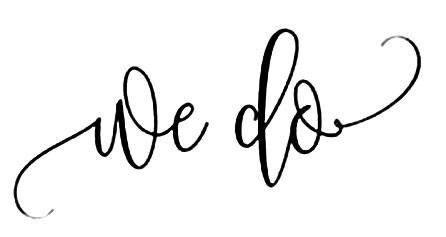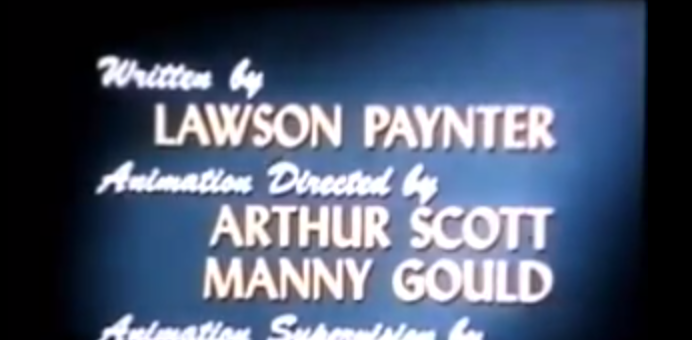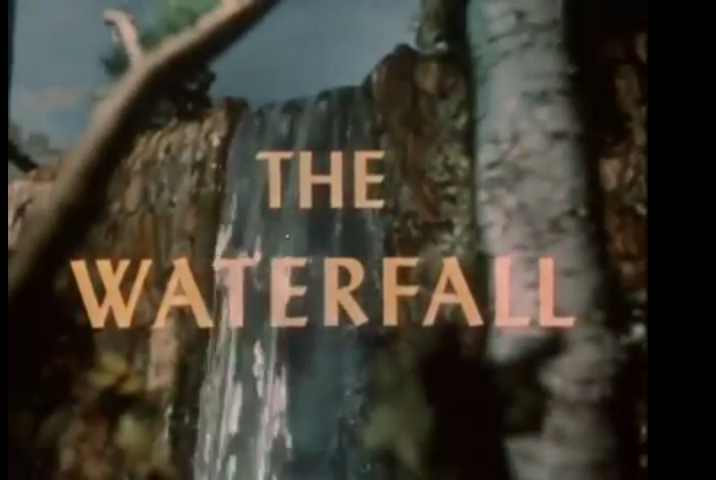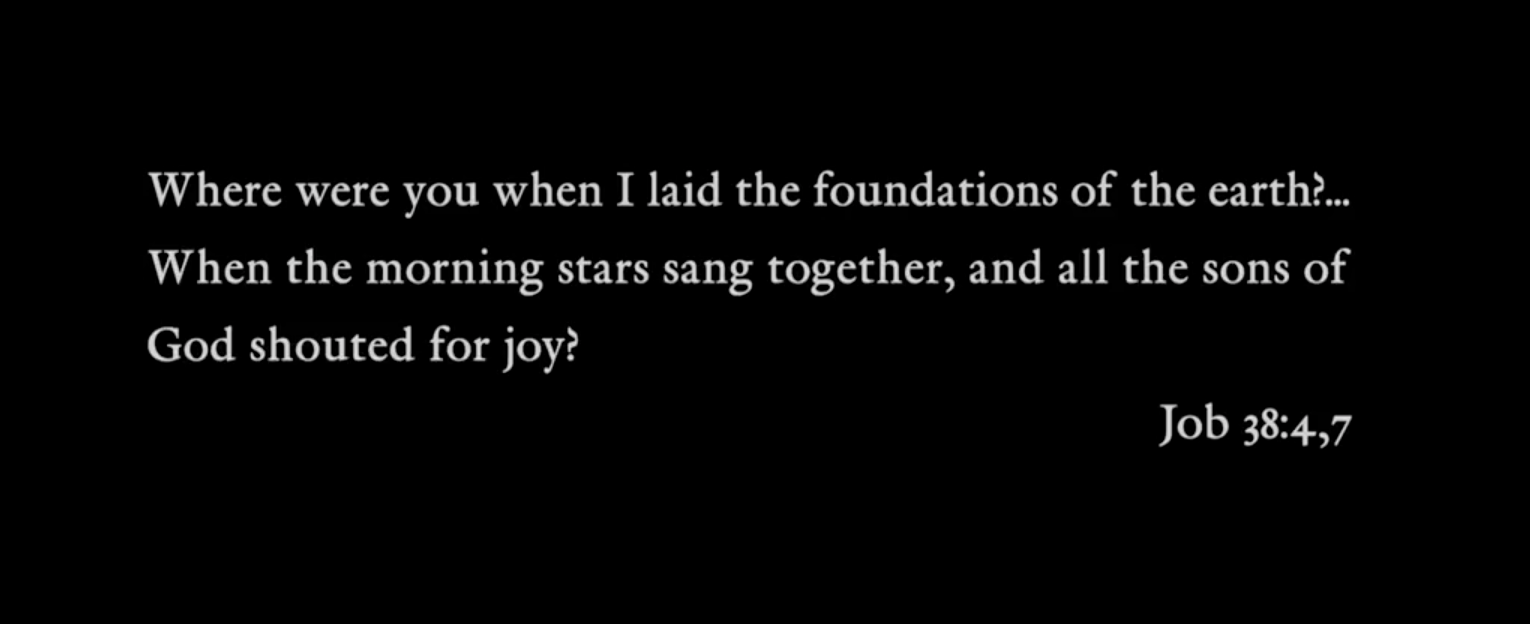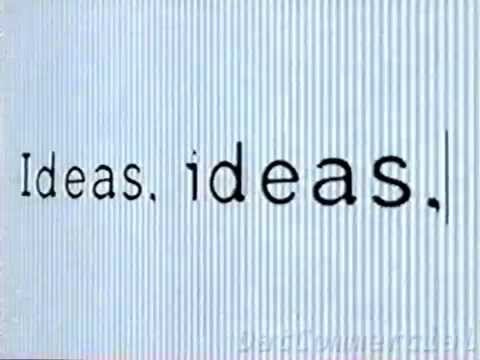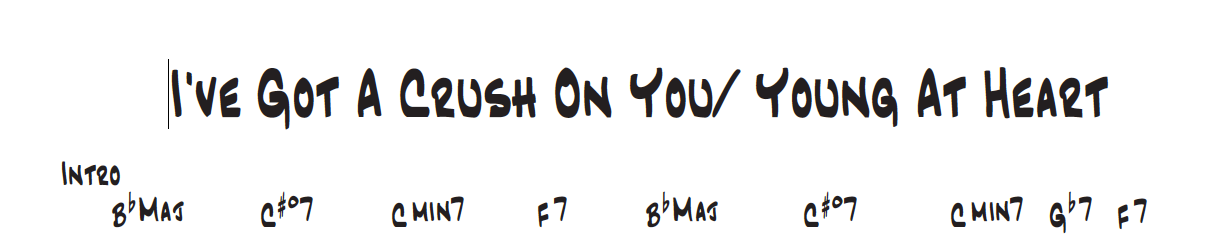
I have this font somewhere but can't launch FontBook just now.
One of you Eagle eyes can ID this I'm sure.
It's fuzzy cause I scanned it of a Biz card I mocked up.
Anyone stumbled across this one before??
Anyone know what this is?
Here's the commercial that features this font:
Postscript. The commercial was designed by David Carson.
Not sure what this is... Caslon?
Hello, wondering if anyone could figure out the fonts in the above two screenshots. In the first screen shot, interested only in the font in the yellow coloring.
Hi guys, I see this font on a lot of jazz sheet music - it's kind of like a handwritten style font. Would anyone know what it's called?
Can anyone identify this font? It's similar to Funhouse, but not quite that.
What makes you so certain? Do you have any other samples of it in use?
This is from the same font but not very good quality. The "e" letters are the same so it cant be handwritten, it has to be a font!
Still not much to go on.
Your tiny examples don't necessarily indicate a canned font.
Maybe the designer simply draws an "e" with the same shape each time.
Ask anyone who has experimented with calligraphy, or various cursive styles, or creates custom greeting cards, etc.
It's definitely a font, because I have tracked down the store for the invitation linked above this post and that font is used throughout their products.
The problem is there are *sooooooo* many of the scripty fonts out now, and many are on sites like Creative Market and the Hungry JPEG, so they are not easily found through bigger font stores like My Fonts. Plus most of these types of fonts are Open Type, so they have alternates for the swashy letters at the beginning and end of the words, so they are even harder to just eyeball.